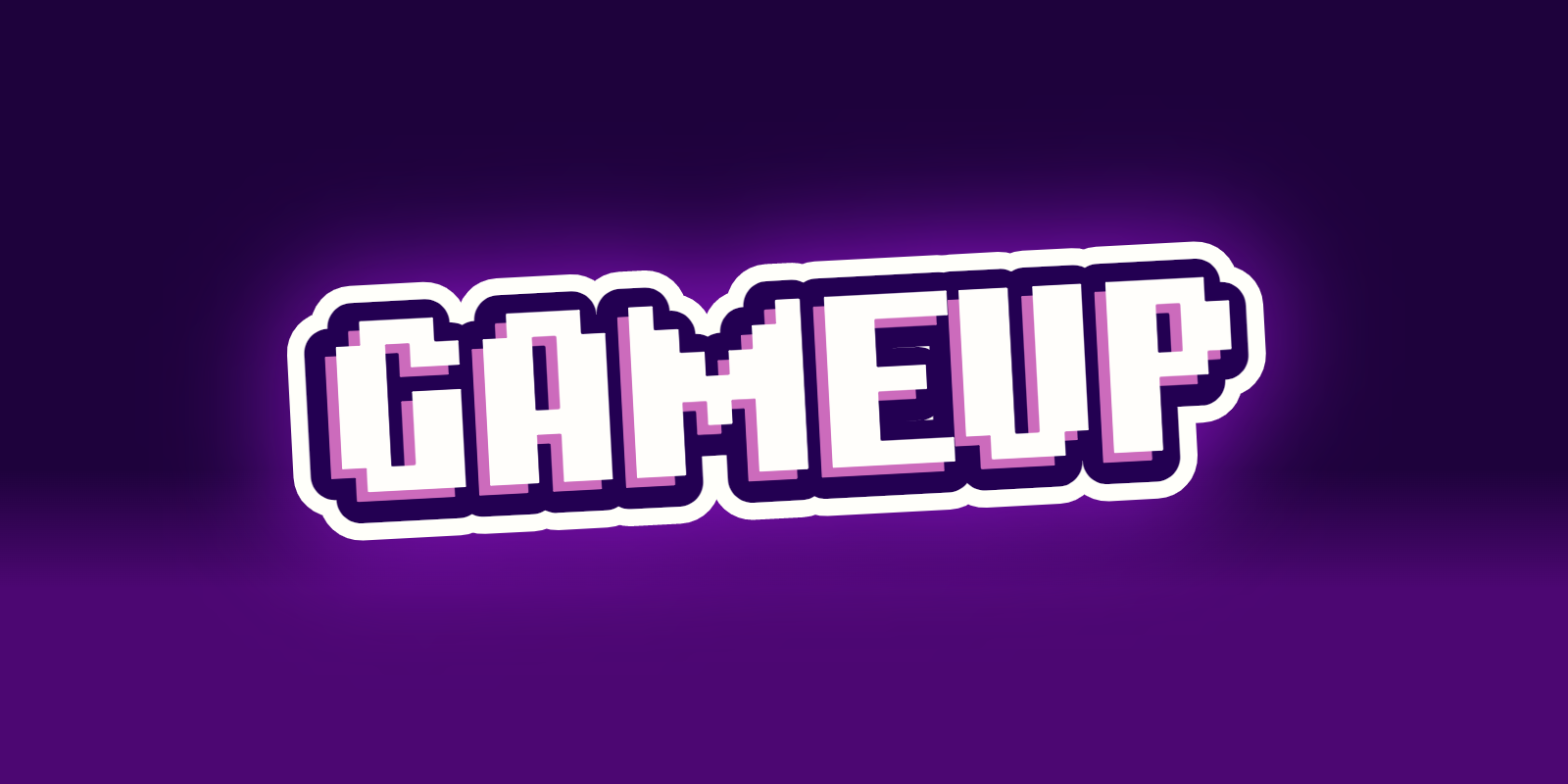
Font style sticker game effect
3D text effect lettering style with outline
Give the text effect sporty team style to the font
Font style for game sports team lettering text effect
Sticker inscription with 3d effect for channel header or video preview, design font art
Free text effects, Font style of a beautiful bright inscription for creating a team game logo
Text effect, inscription in a sports game style for the channel header or video preview